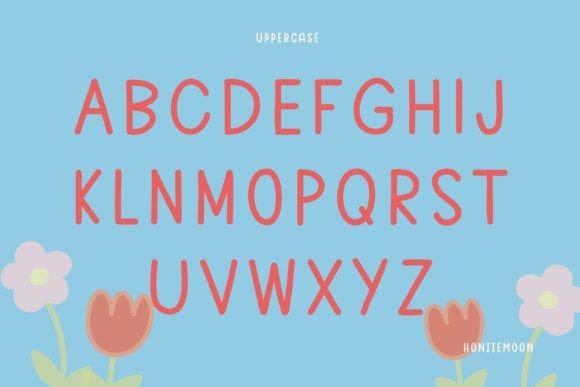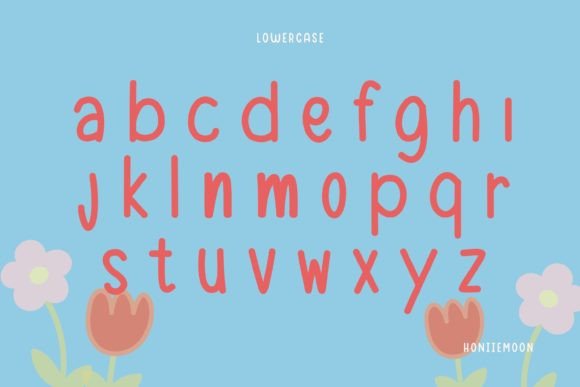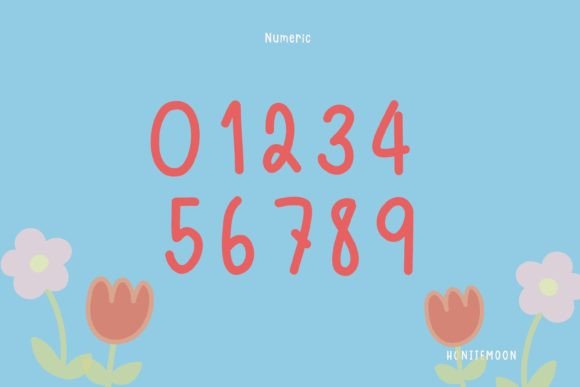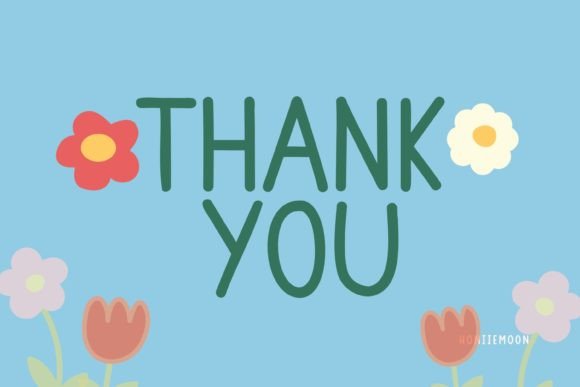
Lady Font
About Lady Font
Introducing Lady, a cool and fun display font that effortlessly combines cuteness and jolliness, enhancing each of your designs with a playful touch. This colorful and bold display font is more than just a typographic choice; it’s a dynamic element that breathes life into your creative ideas. The only limit is your imagination!
The cool and fun characteristics of Lady make it suitable for a wide range of creative applications. Whether you’re working on posters, banners, social media graphics, or any other project, this font adapts seamlessly, adding a lively and vibrant energy to your designs.
Envision Lady bringing a burst of color and playfulness to your designs, making them stand out with a cool and jolly charm. Picture it on a variety of creative ideas, from funky posters to cheerful banners, and notice how it transforms your projects into lively and engaging visual experiences.
In summary, Lady is more than just a font; it’s a creative catalyst that adds a cool and fun flair to your designs. Embrace its cuteness and jolliness confidently, knowing that it has the power to make your ideas come alive with vibrancy and boldness. Let Lady be the choice that infuses your designs with a burst of creativity, making them memorable and captivating.